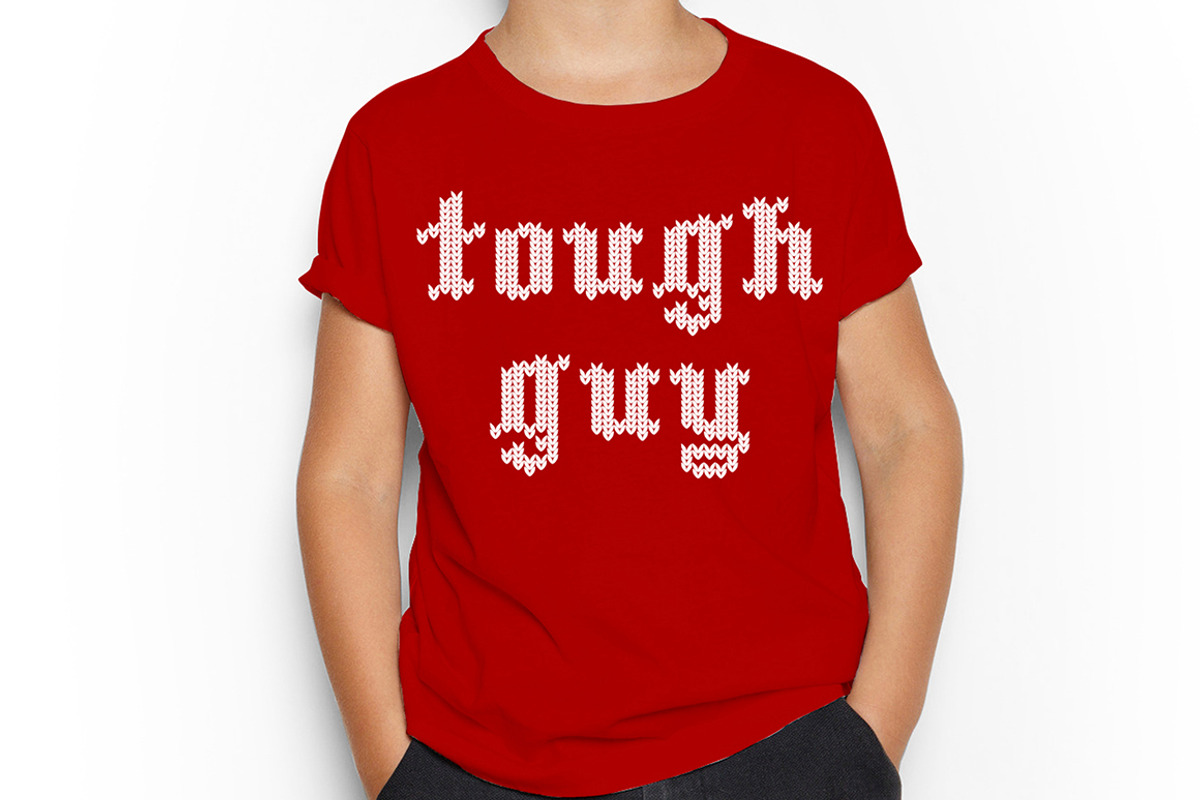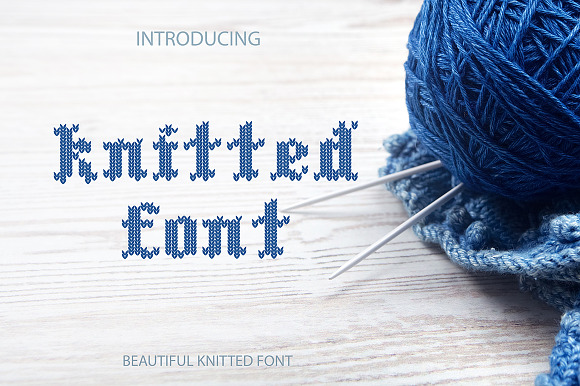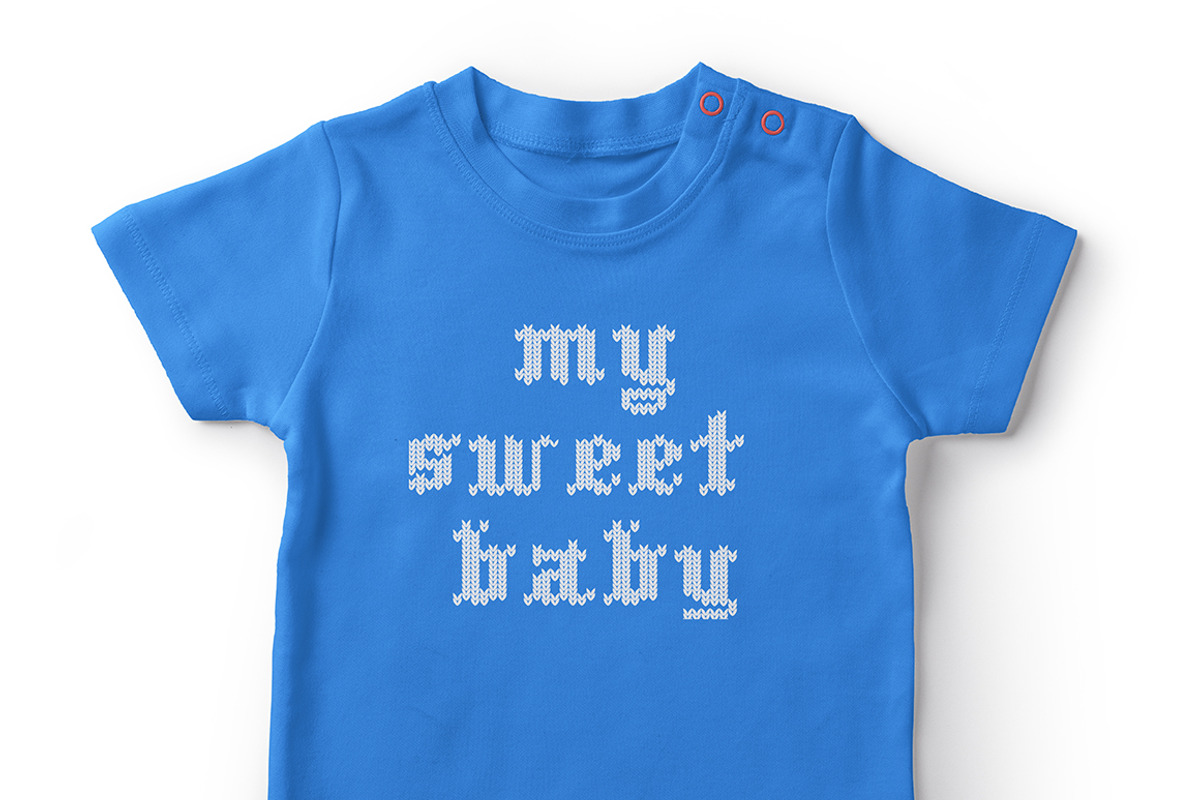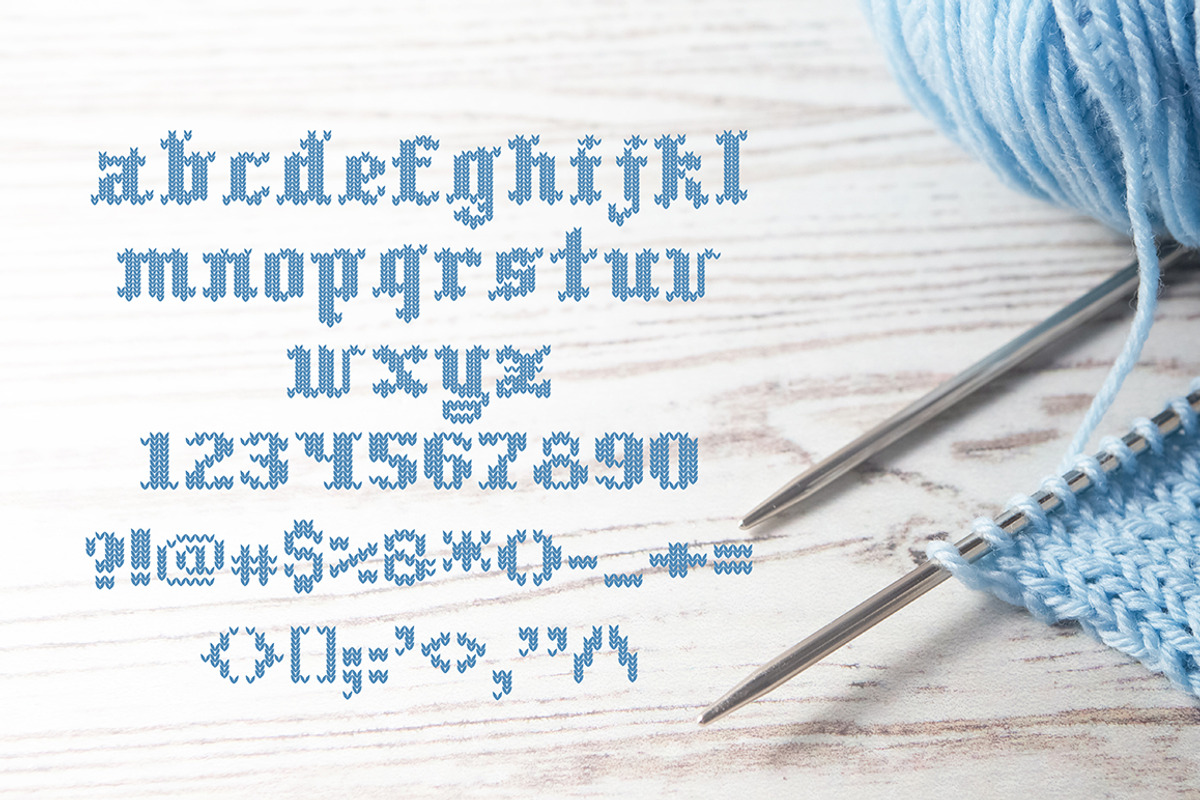
Knitted font
For posters, t-shirts, patterns, fashion, advertising, branding, and lettering in general.
Why Knitted font is worth a look
Knitted font by vetre.antanaviciute fits naturally into Branding, posters, packaging, typography.